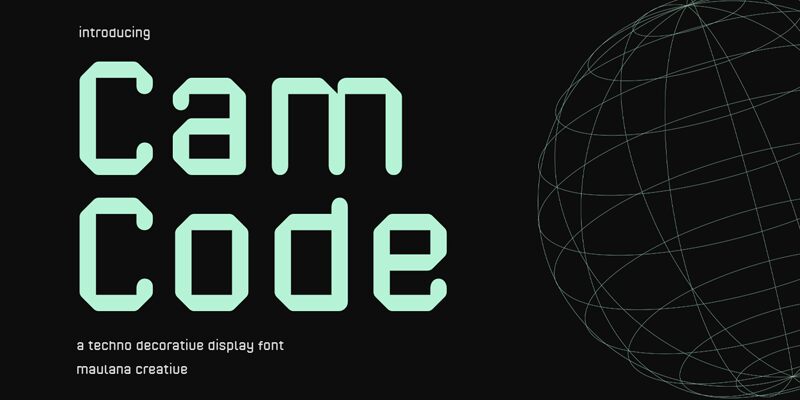
Cam Code font is a display techno font designed by Maulana Creative. A geometric, futuristic design, it lends itself to modern-day tech-inspired poster designs. This clean and minimalist text style offers optimized readability and a professional tone for viewers while maintaining a unique appearance.
The free techno display font can nicely fit branding purposes, stationary projects, stickers, badges, logos, invitations or packaging as well as website titles or mobile applications. Be creative in using it on banner announcements or digital advertisements for visual appeal within both print and digital publications.